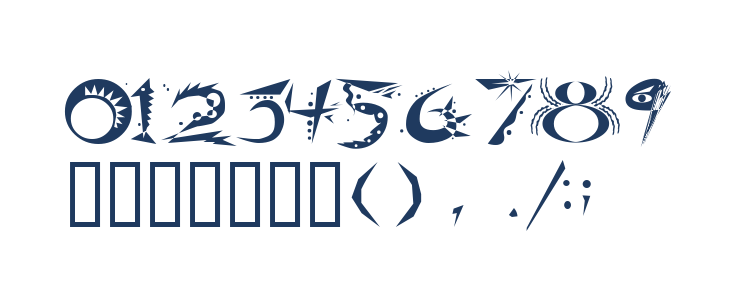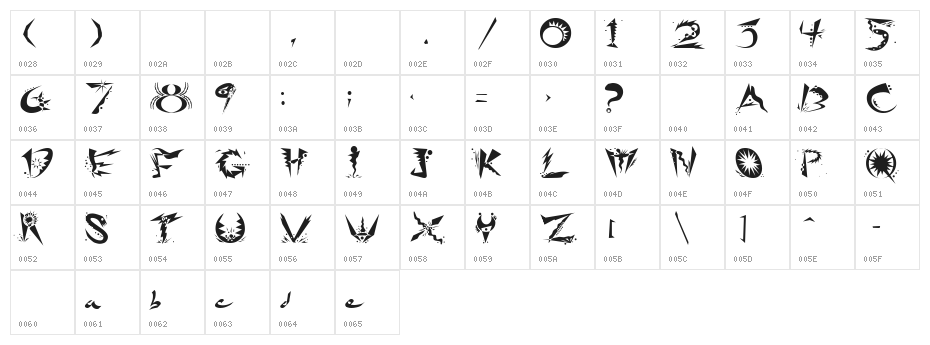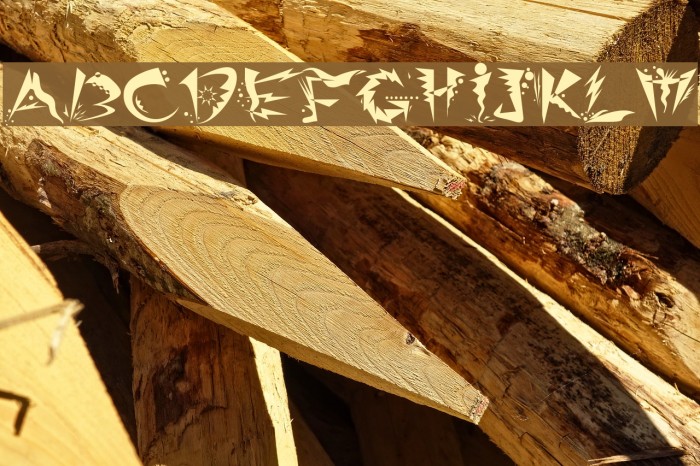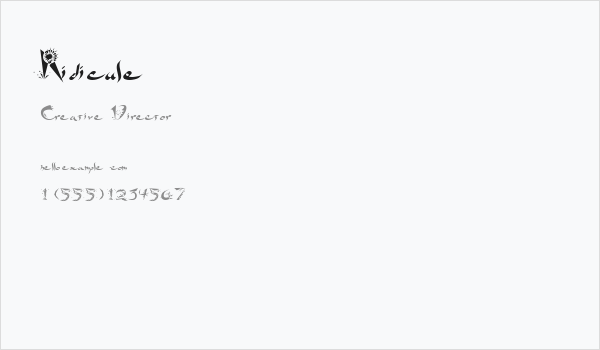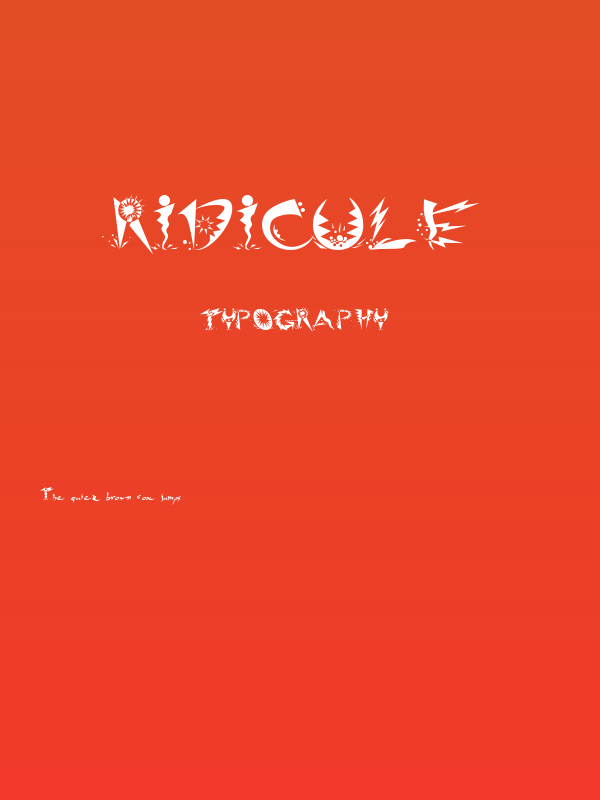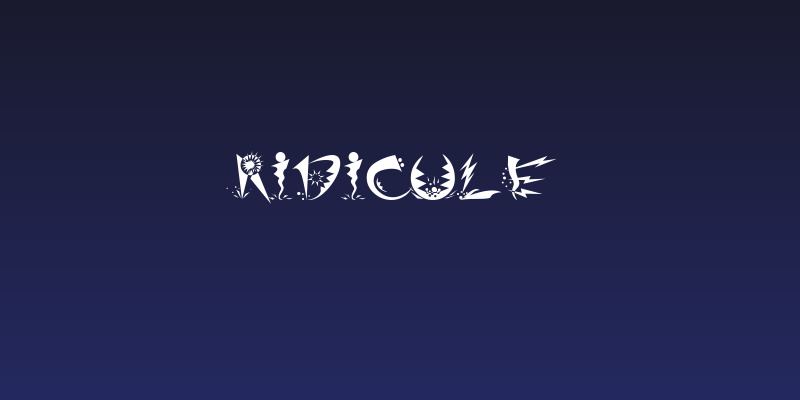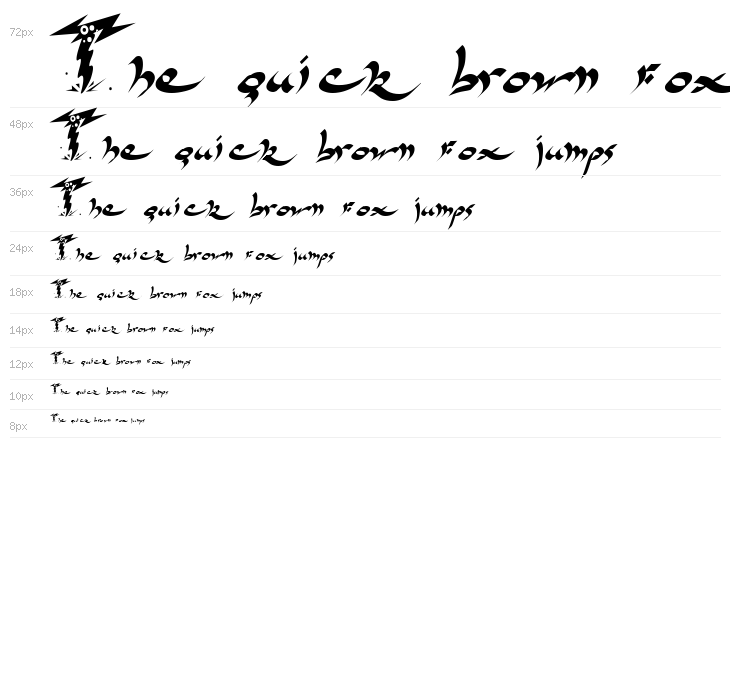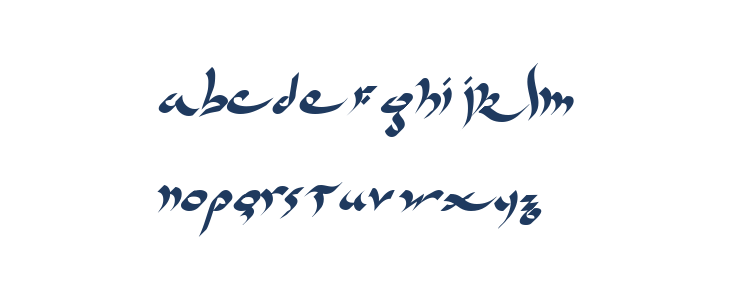
Ridicule Font
Ridicule Description
This font features a highly decorative and edgy style, characterized by sharp, angular lines and intricate detailing within each character. The uppercase letters are bold and dynamic, with unique embellishments that give them a spiky, almost explosive appearance. The lowercase letters maintain a similar aesthetic but with a slightly more fluid and cursive influence, adding a touch of elegance to the overall design. Numbers and special characters follow the same theme, ensuring consistency across all glyphs. This font's distinct and artistic flair makes it stand out, making it ideal for projects that require a bold and unconventional look.
| Proposed Projects | Ideal for album covers, posters, video game graphics, and any project requiring a bold, artistic touch. |